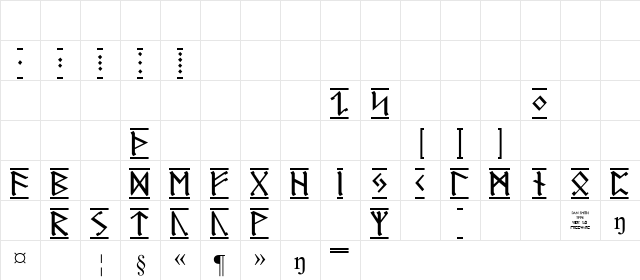
Germanic Runes-1 Regular
Design Context for Germanic Runes-1 Typeface
Germanic Runes-1 takes a measured approach to typography — its balanced proportions and neutral character make it a reliable workhorse for both digital and print work.